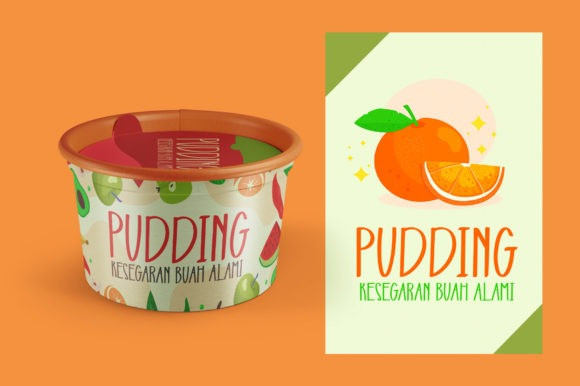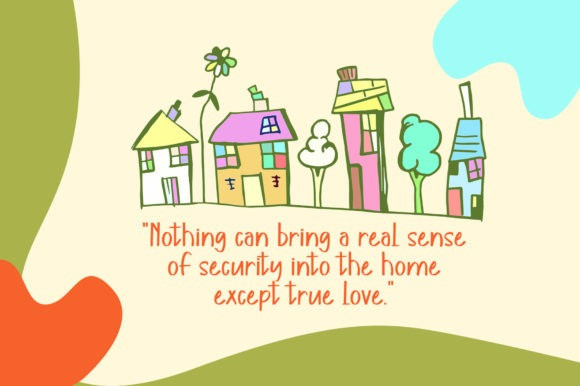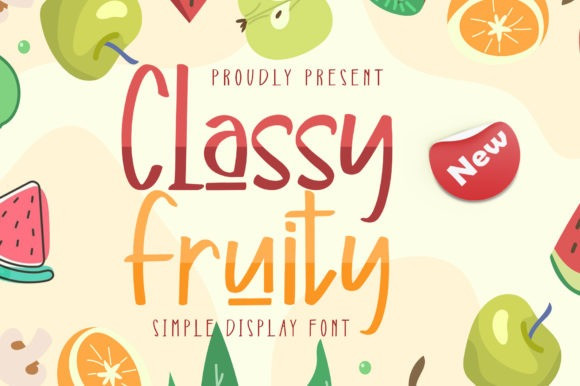
Classy Fruity Font
Classy Fruity is a sweet and quirky handwritten font. No matter the topic, this font will be an incredible asset to your font’s library, as it has the potential to elevate any creation. So, enjoy this font and make it the best project!